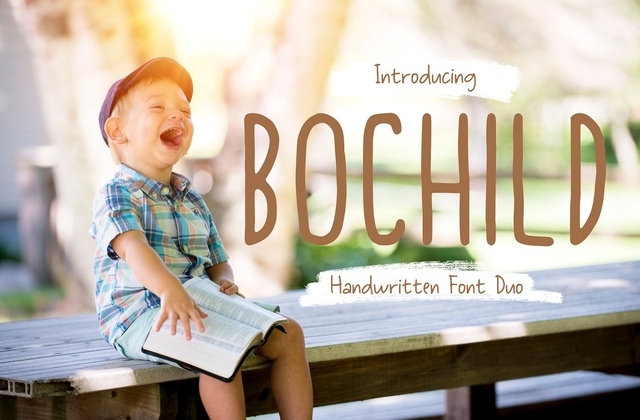
Bochild Duo Font
Bochild Duo Font is perfect for children's book publishing, family brand marketing, parent-child product design, educational materials, kindergarten signage, toy packaging design, children's clothing labels, family restaurant branding, daycare communications, and playful parent-focused advertising campaigns.
Bochild Duo Font is exciting because it beautifully captures the special bond between parents and children with its harmonious dual letterforms that represent the loving connection and shared experiences that define family relationships. Its thoughtfully designed character combination embodies both parental guidance and childlike wonder, making it perfect for brands that want to communicate family values, nurturing care, and the precious moments that bring parents and children together.
The Bochild Duo Font family includes Light, Regular, Medium, Bold weights, playful Italic variations, Condensed styles, Family alternates, Parent flourishes, Child ornaments, and Bond elements, providing designers with comprehensive tools for creating authentically family-focused typography that celebrates the beautiful relationship between parents and children while maintaining professional appeal for family-oriented businesses.
Bochild Duo Font Free Download brings authentic family appeal to parent-child branding applications, featuring lovingly crafted letterforms that honor the special connection between generations while serving contemporary family market needs. This heartwarming typeface combines family authenticity with commercial functionality, creating the perfect solution for children's brands, family services, and parent-focused businesses that celebrate the joy and responsibility of raising children.
Whether you're developing children's product brands, designing family service materials, creating educational content, or producing parent-child communications, Bochild Duo Font provides the nurturing foundation needed for credible family positioning. Its family-centered character makes it particularly effective for children's publishers, family restaurants, educational toy manufacturers, and childcare providers targeting parents who prioritize quality family experiences and child development.
Perfect for children's marketers, family brand designers, educational content creators, and creative professionals working with parent-child organizations, this font offers the nurturing qualities essential for successful family market positioning. The typeface's heartwarming nature ensures consistent family appeal across both digital parenting platforms and traditional children's product packaging.
Bochild Duo Font includes comprehensive family-focused character sets, parent-child design elements, and lovingly optimized spacing that guarantees superior performance in family-oriented design applications. Its dual approach to typography makes it indispensable for brands celebrating parent-child relationships and family values. Strengthen family bonds with Bochild Duo Font Free Download and create typography that truly brings families together.